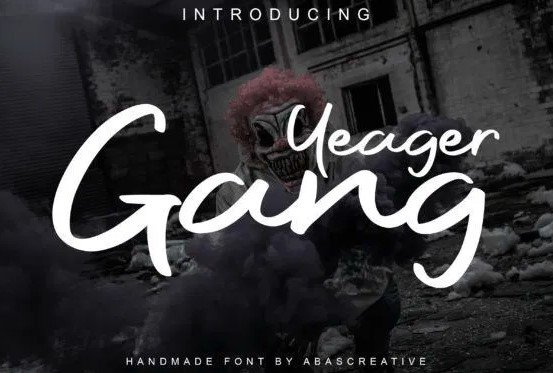
Hello, if you’re looking to obtain some attractive design fonts for free, you should definitely use Yeager Gang Font to make your projects more appealing, polished, and stylish. This font offers exquisite styles and ligatures, all at no cost.
Also, it works great with the combination of bodoni font, if you want to get some extra uniqueness then you must have to use it as a pairing for amazing results.
This is an awesome and stylish font that will make any graphic designs more beautiful easily. It will turn your imagination into the best arts of graphics.
View Of Yeager Gang Font
Before scroll down, lets see the example of this typeface which we provided by showing all the characters and glyphs contains in this font.
This is the perfect typeface that has awesome handwritten texture, which is great for making large designs easily. It is perfectly fine for making magazine covers, email marketing designs, Facebook ads and other designs for free. For more features use it with the combination of apple chancery font.
| Style | Handwritten |
| Designer | Creative Fabrica |